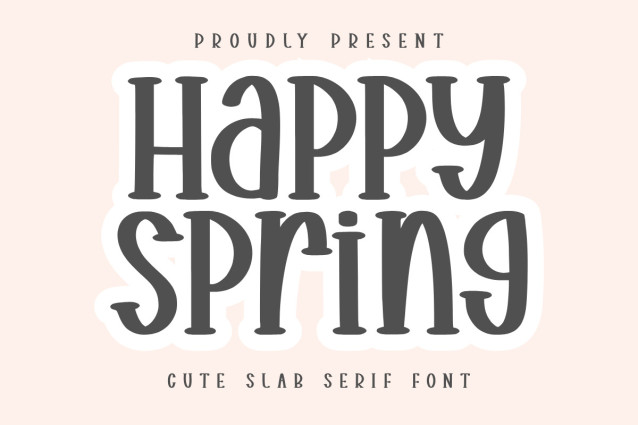
Happy Spring Display Font
Happy Spring Display Font is a fun, clean, and well-designed slab serif font, perfect for any project! Use this unique font to create stunning designs, or combine it with other fonts like scripts and sans serifs.